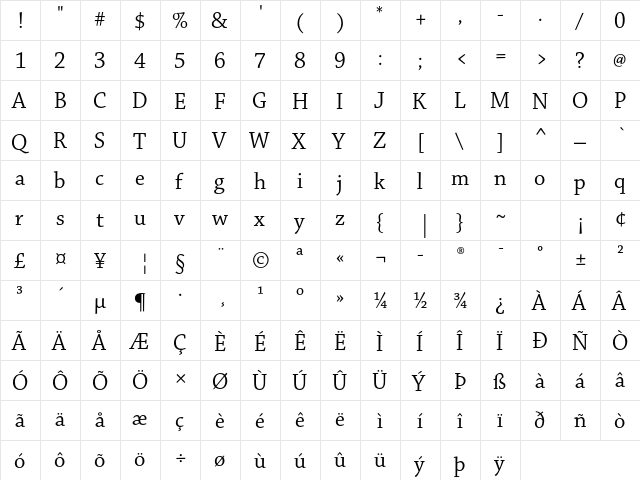
Chaparral Pro Subhead
| Designer | Carol Twombly |
Design Context for Chaparral Pro Typeface
Chaparral Pro takes a measured approach to typography — its balanced proportions and neutral character make it a reliable workhorse for both digital and print work.